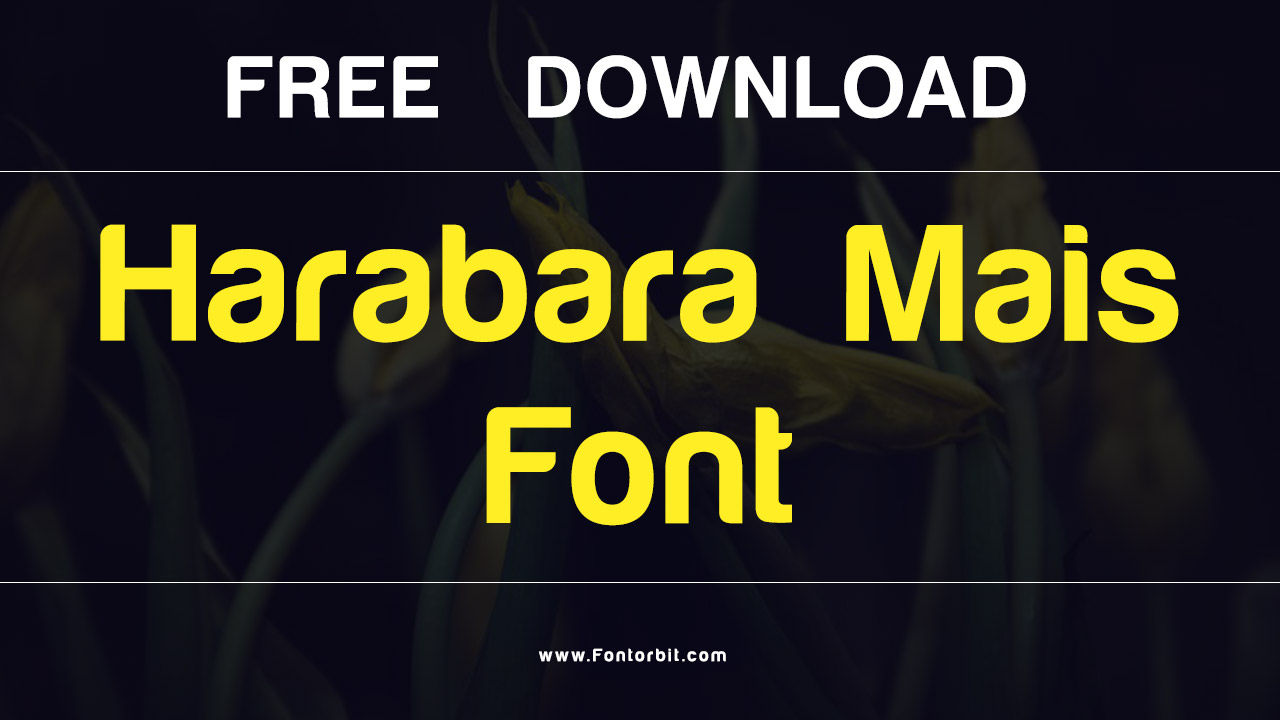
The Harabara Mais Font is a modern sans-serif typeface designed by the talented Brazilian designer André Harabara. First introduced to the design world in the early 2000s, this font has gained immense popularity due to its clean lines, versatility, and decorative qualities.
Part of the Harabara font family, this typeface is highly regarded for its ability to create bold and visually appealing designs. Whether used for logos, wedding invitations, or modern text displays, Harabara Mais stands out in various categories.
- Designed by André Harabara.
- Modern sans-serif style.
- Ideal for decorative and professional designs.
- Available in bold, italic, and light styles.
- Supports multiple languages.
The Harabara Mais Font is incredibly versatile and works well in a variety of settings:
- Logos: Perfect for creating modern and professional branding.
- Wedding Invitations: Its decorative yet clean style adds elegance to invitations.
- Retro Designs: Offers a vintage, nostalgic feel with a modern twist.
- Web Design: Ideal for text-heavy websites that require legibility.
- Handwritten and Typewriter Styles: Great for creating a mix of traditional and modern text displays.
- Mexican and Western-Inspired Themes: Suitable for thematic designs.
- Print Media: Works well in magazines, brochures, and flyers.
- Digital Projects: Use it for logos, presentations, or social media graphics.
- Decorative Signage: Adds a creative flair to signage and posters.
The Harabara Mais Font by André Harabara is a stunning sans-serif typeface that combines modern aesthetics with versatility. It’s ideal for a variety of uses, from decorative signage to professional logos, offering styles like bold, italic, and light.
1.What Is Harabara Mais Font?
Harabara Mais is a modern sans-serif typeface designed by André Harabara.
5.Can I Use Harabara Mais For Logo Design?
Yes, it is an excellent choice for logo designs due to its clean and bold look.
8.What Makes Harabara Mais Font Popular?
Its modern sans-serif style, versatility, and decorative appeal make it highly popular.